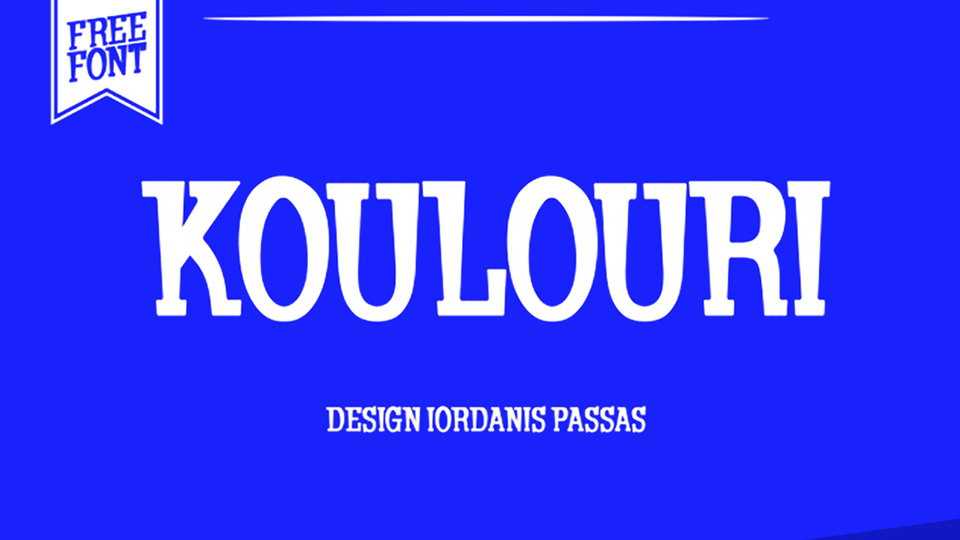
Download Koulouri – a creative and unique all caps display Latin and Greek font. It is suitable for logos, labels, posters, banners, social media and other creative projects.
Designer: Iordanis Passas